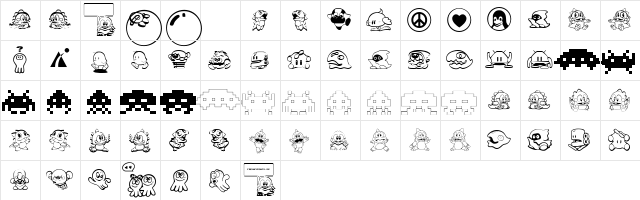
Taito All Stars Regular Free Font
Taito All Stars Regular
Designer: ck! [freakyfonts]
Design Context for Taito All Stars
Taito All Stars is a composed and adaptable typeface that performs quietly and consistently across a wide range of design contexts.